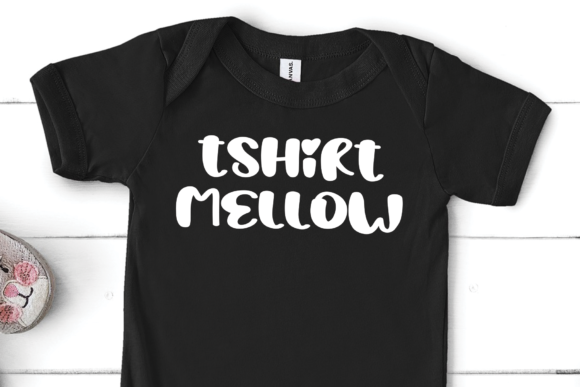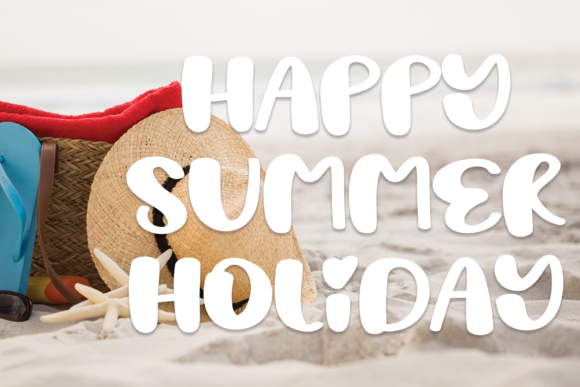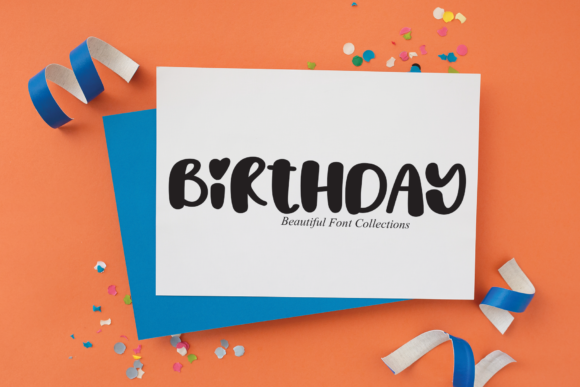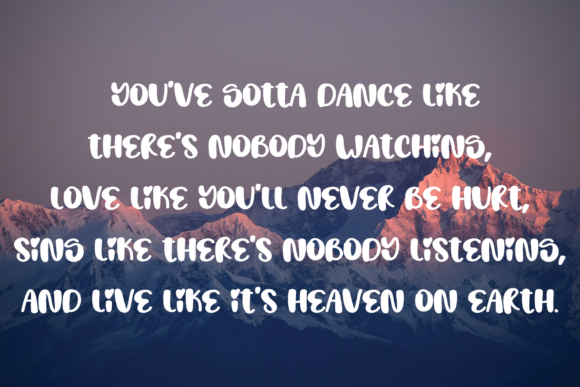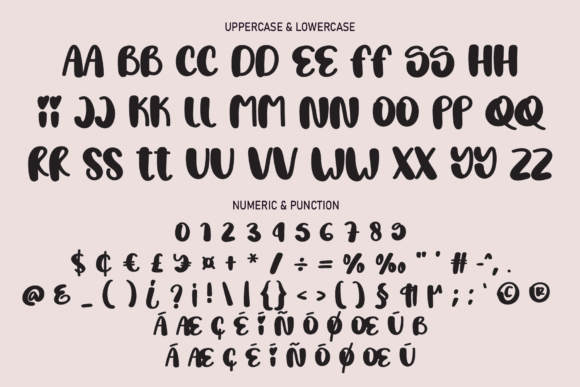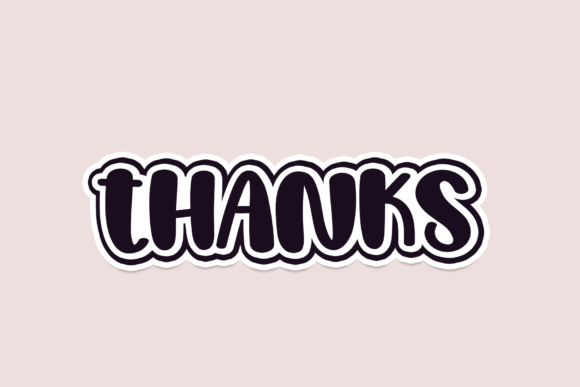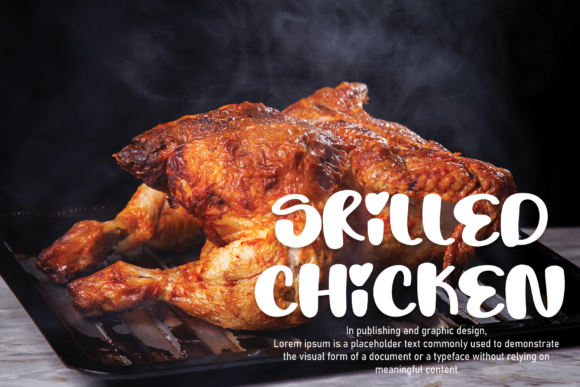
Friday Font
About Friday Font
“Friday” introduces itself as a bold and thick font, ready to infuse fun and playfulness into your designs. With its bold demeanor, this font becomes a vibrant choice for a variety of branding and packaging projects, promising to captivate attention with its unique and creative elements.
The thickness of “Friday” is a key feature that contributes to its visual impact. When used in designs, particularly for branding and packaging, the bold strokes command attention and ensure readability. This makes the font a powerful choice for making a statement and creating a memorable visual presence.
The playful essence of “Friday” is enhanced by its creative details, such as hearts replacing dots. This touch adds a whimsical and charming quality to the font, making it suitable for designs that seek to convey a sense of fun and lightheartedness. The incorporation of hearts adds a touch of warmth and friendliness to the overall aesthetic.
The versatility of “Friday” extends to a variety of projects where a bold and playful approach is desired. Whether applied to product packaging, promotional materials, or social media graphics, the font injects a dose of energy and creativity into the design. Its boldness ensures that the message is conveyed with impact.
For branding purposes, “Friday” becomes a distinctive choice that sets a brand apart with its bold and creative elements. The font’s thickness and playful details create a unique visual identity that resonates with audiences seeking a brand that exudes personality and creativity.
The chubby and bold characteristics of “Friday” also make it suitable for projects aimed at a younger audience or those that aim to evoke a sense of joy and positivity. Its design elements align with a lighthearted and cheerful aesthetic, making it a fitting choice for various design contexts.
In conclusion, “Friday” stands out as a bold and playful font, blending thickness with creative details to make a memorable impact. Whether it’s for branding, packaging, or other design projects, this font brings a sense of fun and vibrancy that instantly grabs attention and adds a touch of whimsy to your creative endeavors.